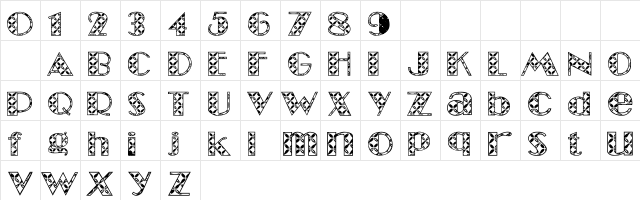
101! Floral Fill Regular
Design Context for 101! Floral Fill
101! Floral Fill is a composed and adaptable typeface that performs quietly and consistently across a wide range of design contexts.